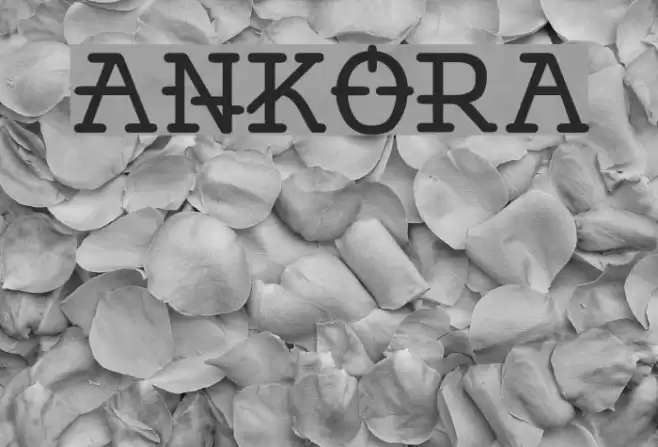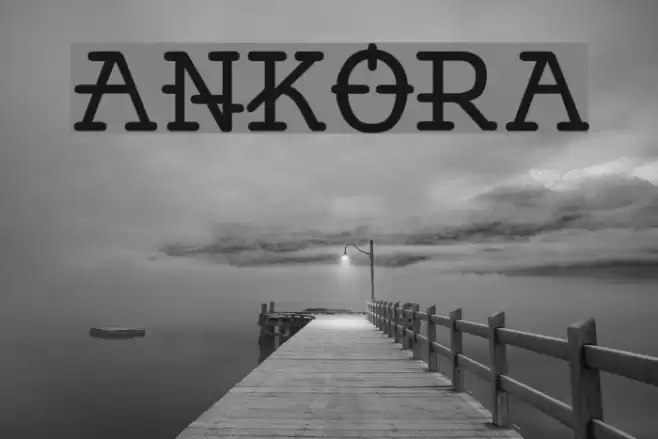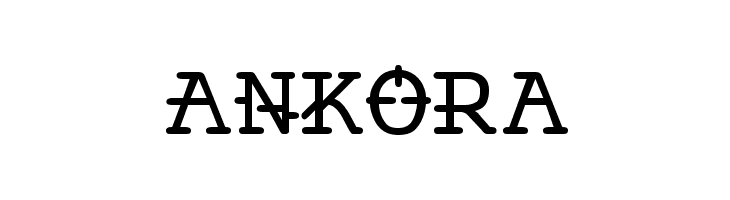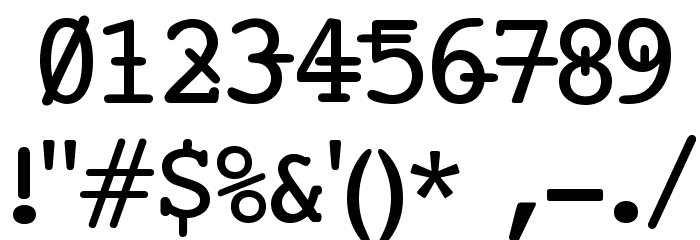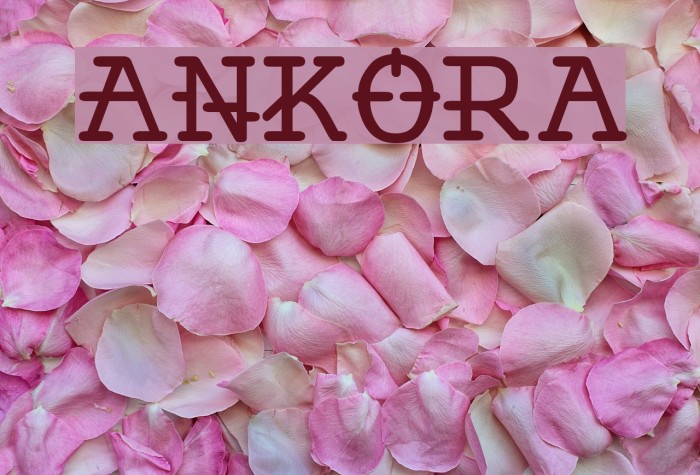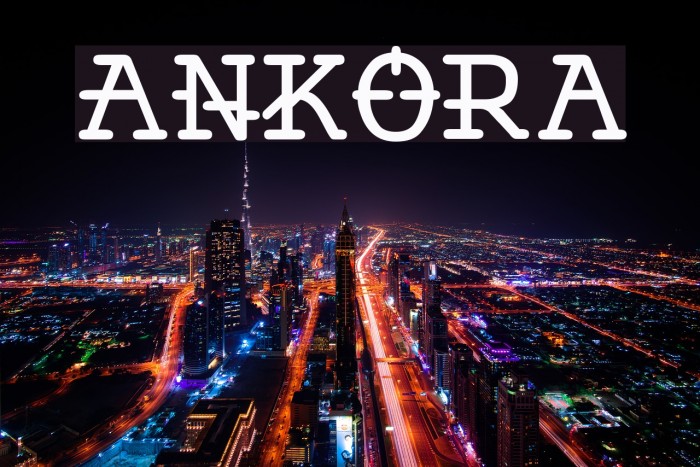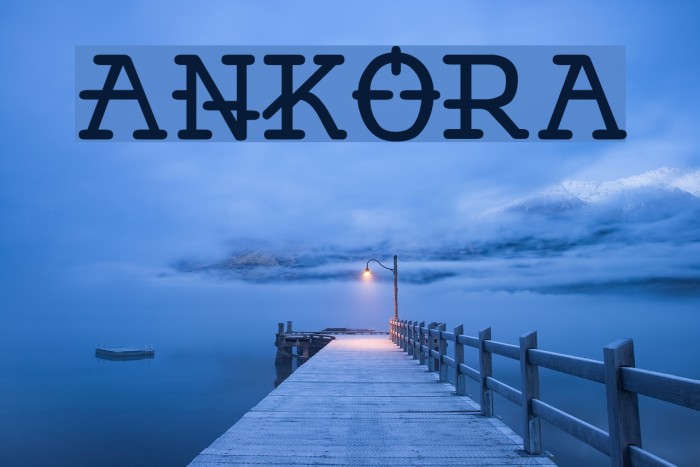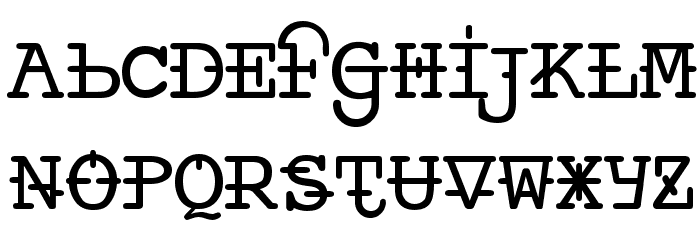
Ankora Font
Ankora Description
This font features a bold and distinctive style with a modern twist on traditional serif elements. The characters are designed with a strong emphasis on geometric shapes, giving them a structured and clean appearance. The uppercase letters are particularly striking, with unique flourishes and accents that add a touch of elegance. The lowercase letters maintain a consistent style, ensuring readability while still offering a unique aesthetic. Numbers and special characters are crafted with the same attention to detail, making them suitable for a variety of design applications. The overall design is both functional and decorative, making it a versatile choice for creative projects.
A bold, modern serif font with geometric influences and elegant flourishes from Typewriter fonts.
- Proposed Projects: Ideal for branding, editorial design, posters, and packaging where a modern yet classic look is desired.
- Use Case: Headlines, Logos, Branding